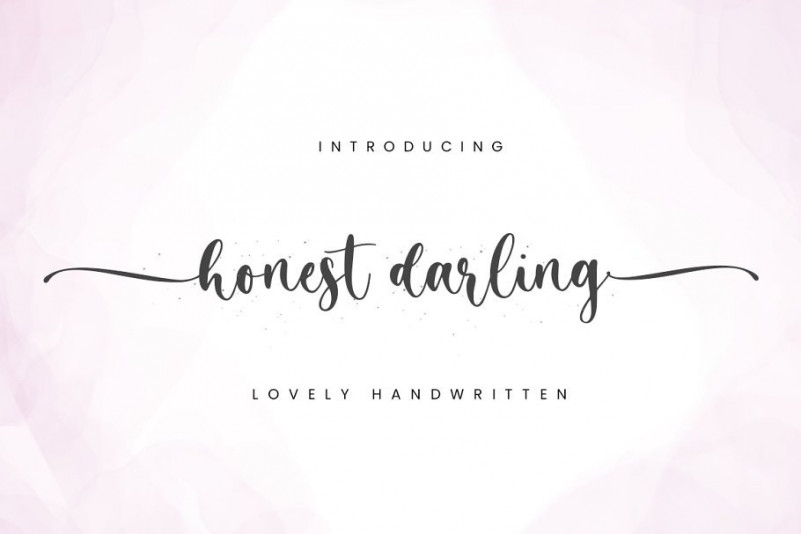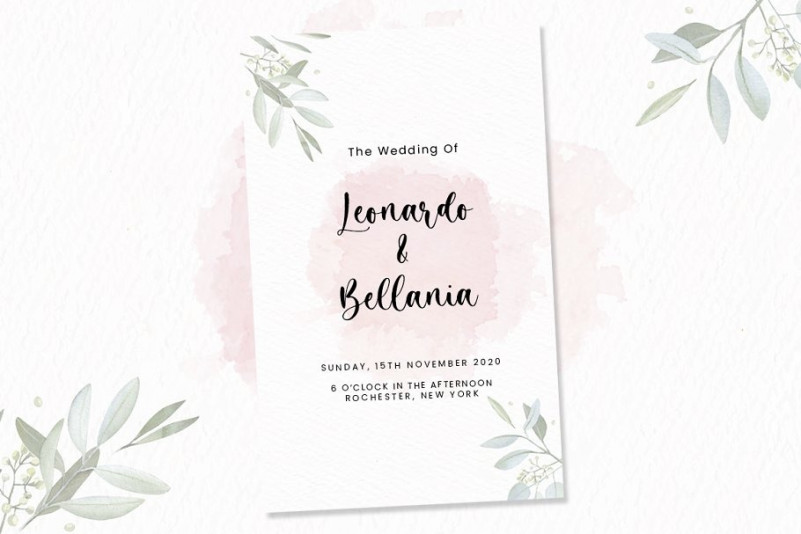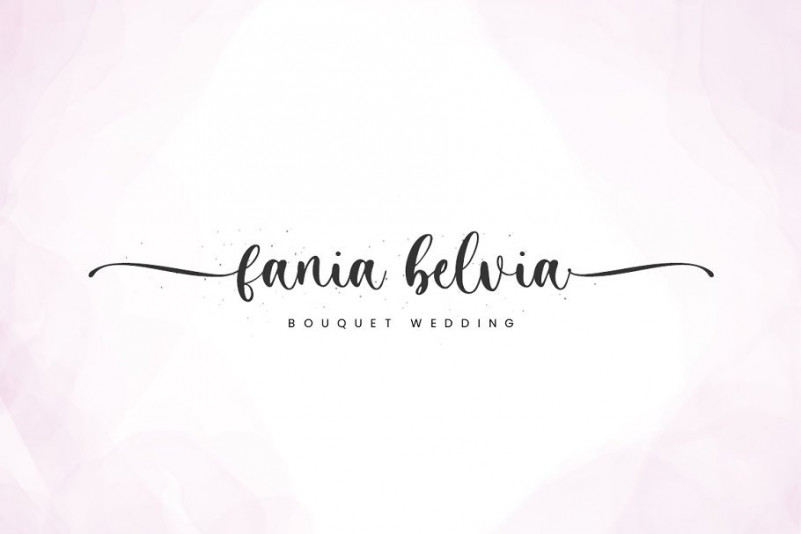
Honest Darling Script Font
Honest Darling is a beautiful calligraphy font perfect for crafting, branding, invitation, stationery, wedding designs, social media posts, advertisements, product packaging, product designs, label, photography, watermark, special events or anything.
Honest Darling comes with full set of uppercase and lowercase letters, swash alternates, ligatures,multilingual symbols, numerals and punctuation.